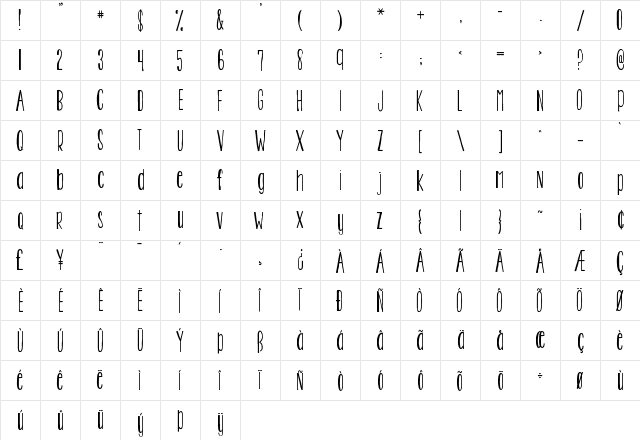
KG Two is Better Than One Regular
| Foundry | Kimberly Geswein |
| Designer | Kimberly Geswein |
Design Context for KG Two is Better Than One Typeface
KG Two is Better Than One offers clean, dependable letterforms without strong stylistic allegiance, making it a practical choice for designers who need flexibility.